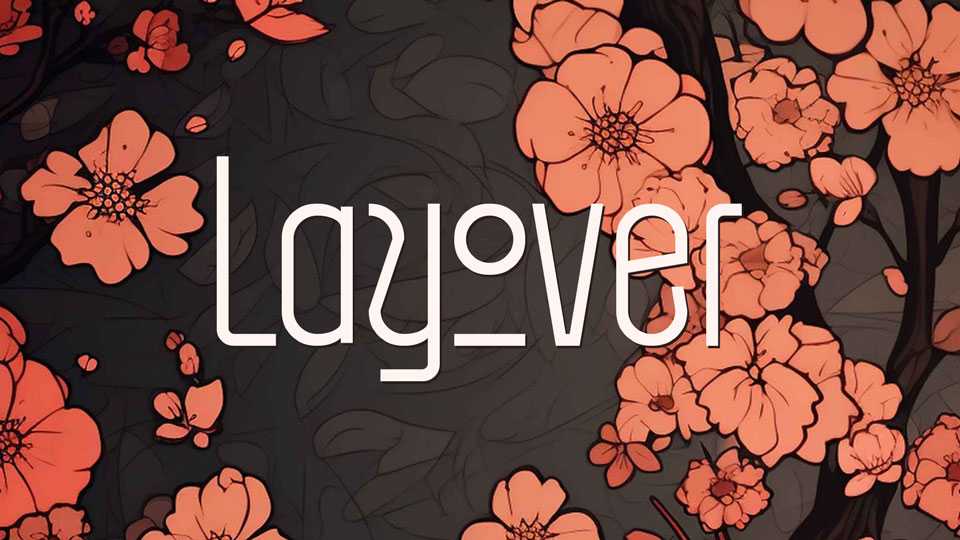
Download Layover font, a condensed display typeface inspired by the elegance and sophistication of Art Deco design. It features slim, streamlined letterforms with geometric precision and stylish flair.